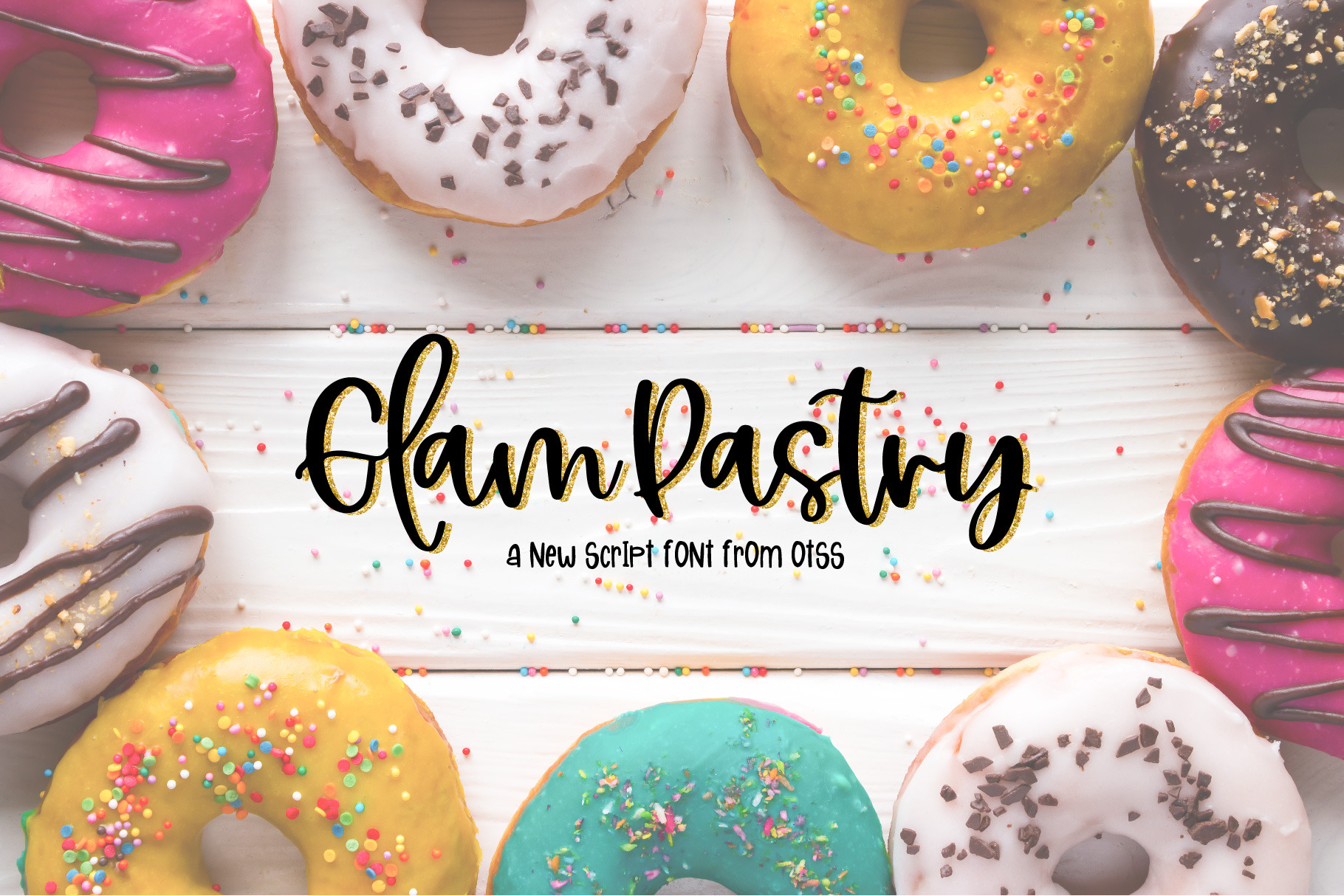
Glam Pastry
Glam Pastry is a font family published by On The Spot Studio.
Glam Pastry : A Super Cute script that works in both upper or lowercase perfectly. Free flowing lettering with a touch of personality.